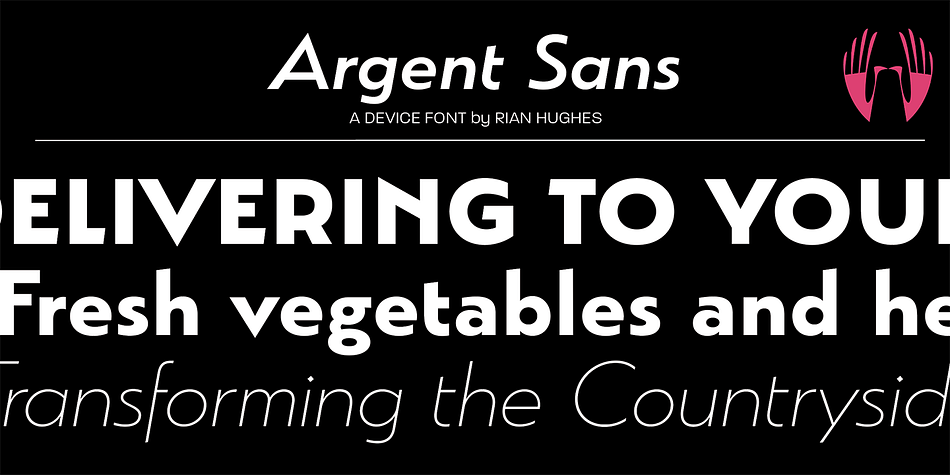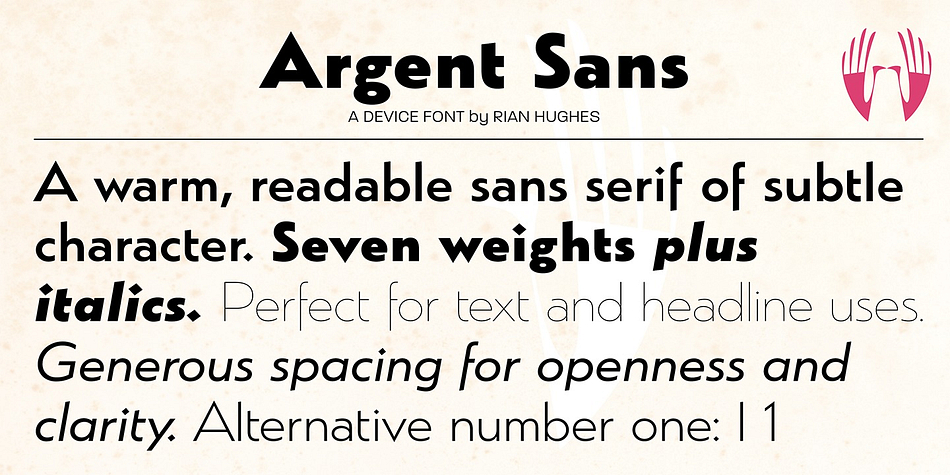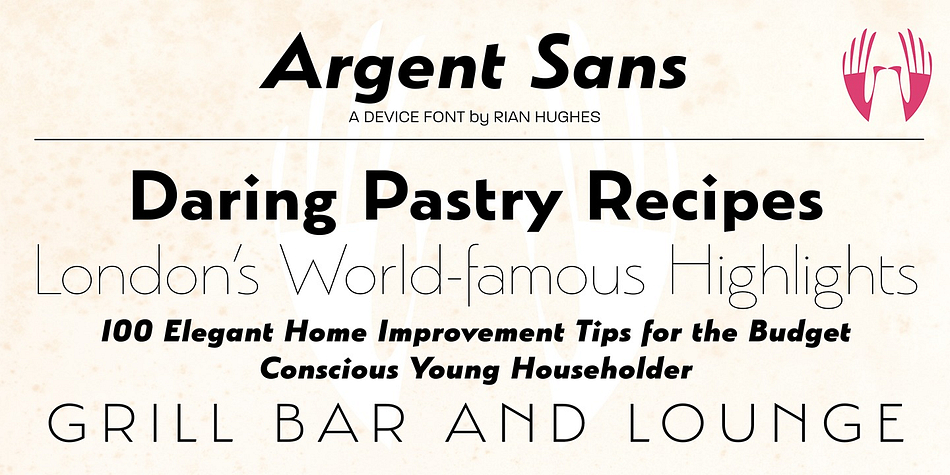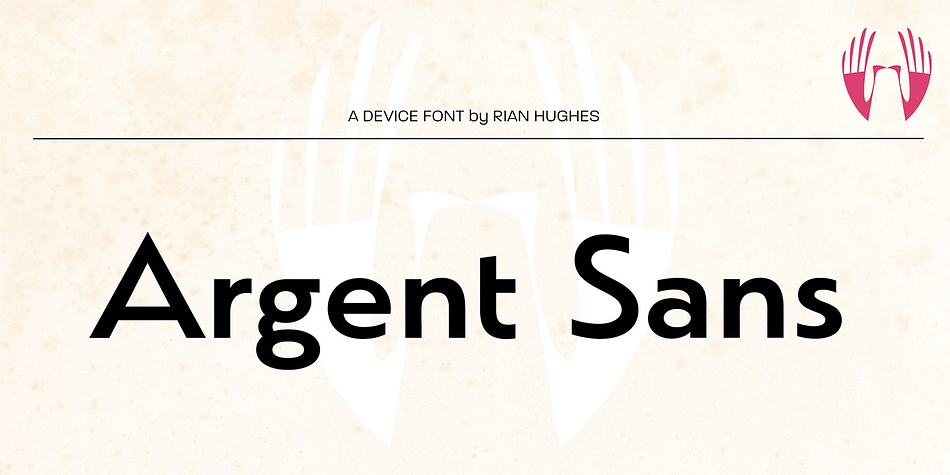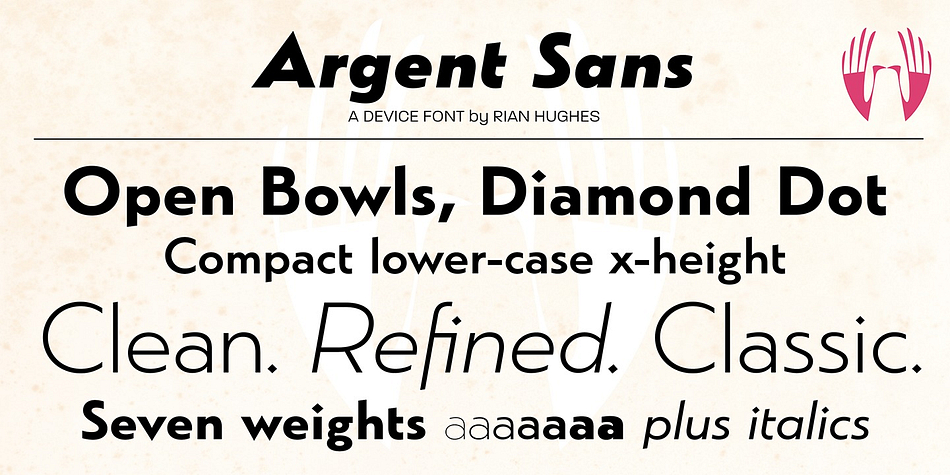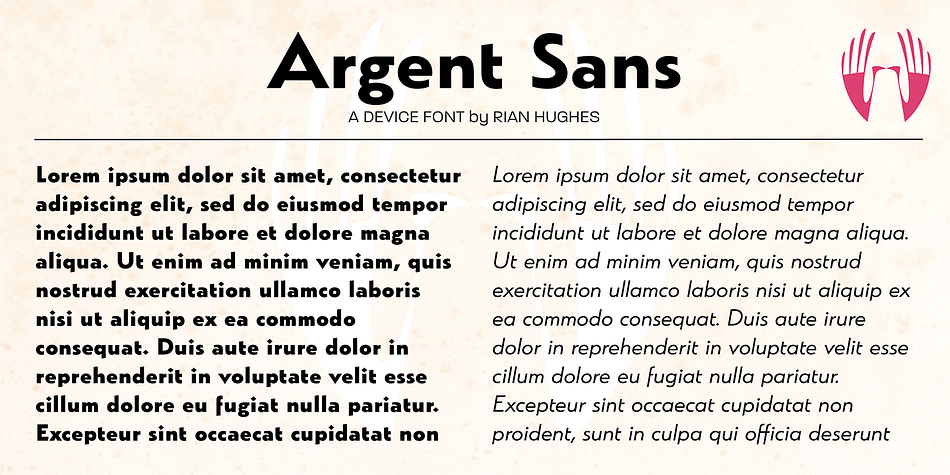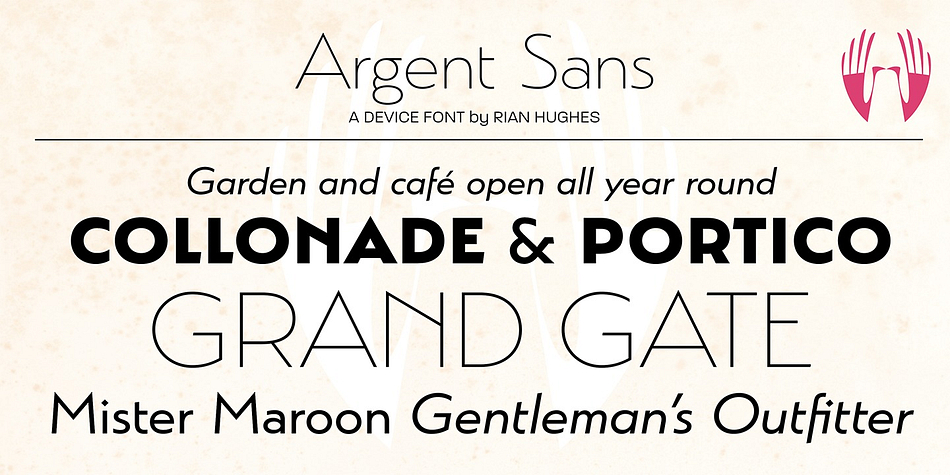
Designed by Rian Hughes, Argent is a sans serif font family. This typeface has fourteen styles and was published by Device.
An elegant sans with a low lower-case x-height, diamond-shaped dots and a reweighed complimentary italic with subtle calligraphic touches. With its generous spacing and leading, Argent is very readable in extended text settings, appearing warm and open. The wide range of weights, from thin to heavy, provide all the necessary options for headline and text, the basis of any comprehensive design system. Perfect for brochures and magazines.